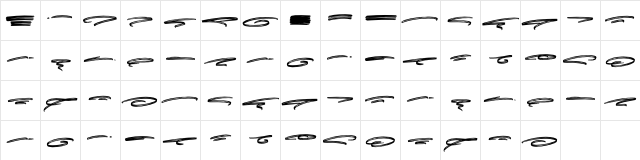
Greatest Richmond Swash Regular
Design Context for Greatest Richmond Swash Typeface
Greatest Richmond Swash flows with the natural rhythm of handwritten lettering, making it ideal for designs that call for warmth and personal expression.
Font Pairing: Combine Greatest Richmond Swash with a simple geometric sans for maximum contrast — the tension between flowing curves and clean structure is a classic typographic pairing.
Pro Tip: Pair Greatest Richmond Swash with a clean sans-serif for supporting text. The contrast between fluid script and geometric structure creates an elegant typographic hierarchy.